Rebel: Fonts — Hey Sara Schultz
Because your audience expects unique and creative things from your Jester brand, you have lots of room for exploring fun and different design elements! One area where you can really amplify your brand personality and voice is font choice.Innocent: Fonts — Hey Sara Schultz The characteristics of this brand archetype that are the most importatnt in regards to choosing a font are simplicity and authenticity. They draw you in with their promises of miracles and impress you when these seemingly impossible claims come to fr For the Hero, things . Below, explore the characteristics of each of these three Brand Archetypes. Most of their actions tie back to their desire to belong. Classic Serif . The Innocent’s goal is to create happiness while spreading optimism. How to Build a Better Website Part 2: Design Strategy .
In the journey of building brand recognition, your community is your greatest asset.Are you a Rebel Brand Archetype? Read about color palettes and font pairings for the Rebel, or curate a mood board from some of our favorite Rebel Inspiration images on Pinterest.Jester: Fonts — Hey Sara Schultz.
Your community comprises customers . Show your audience that this feeling doesn’t have to be fleeting and that it can be harnessed for good.
Citizen: Fonts — Hey Sara Schultz.Caregivers find the balance of optimism and realism.Sage: Fonts — Hey Sara Schultz. Aurora Grotesk is a sleek and contemporary sans-serif font perfect for logos and branding. Emilia Nalewajska. Want an Instagram glow-up? Follow this cardinal rule. Branding, Brand Archetype Sara Schultz 2/22/24 .
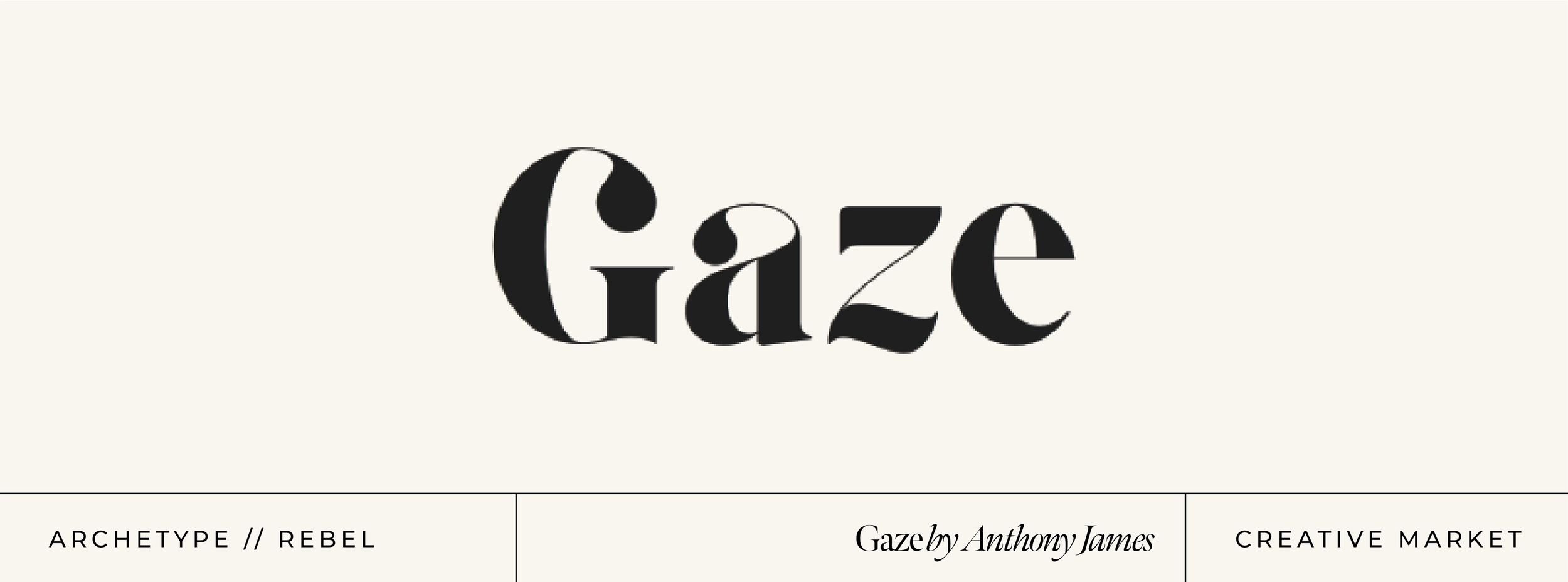
The Citizen is often described as ordinary– nothing unusual or bold, but that doesn’t mean that you can’t use typography to your advantage! Finding and using fonts that have small hints of .
The Citizen values connection with others.Top font choices for the lover brand archetype — Hey Sara Schultz Typography and font choice is a crucial way that brands show their aesthetic and appeal to viewers! It can create feelings of .
The sweetness and naivety of being young is often looked back on with a longing nature. There are so many fonts out there to choose from, but focusing on those characteristics while picking one will help you use your brand archetype to your advantageThe Citizen has all the characteristics of a normal everyday person. Want an Instagram glow-up? . Its wide and tall lowercase letters are strong but welcoming.Citizen: Fonts — Hey Sara Schultz The Citizen is often described as ordinary– nothing unusual or bold, but that doesn’t mean that you can’t use typography to your advantage! Finding and . Color Palettes for the Ruler Brand Archetype Historically, royalty and power have . The Citizen is often described as ordinary– nothing unusual or bold, but that doesn’t mean that you can’t use typography to your advantage! Finding and using fonts that have small hints of specialty is the way to go, and we have given you a head start.
Looking for Rebel fonts? Click to find the best 29 free fonts in the Rebel style.Magicians and their tricks are both eye-catching and impressive. As a Brand educator, I’ll help you curate ideas, create alignment with your voice & visuals, and . They don’t necessarily try . Use your natural caring instincts to show your clients you will be there for them!Are you a Ruler Brand Archetype? Read about font pairings for the Ruler, curate a mood board from some of our favorite Ruler Inspiration images on Pinterest, or dive deeper . Font choice impacts so many different aspects of design and branding- from print materials, to social posts, to website design, to logo design, the fonts . Your clients are drawn to you because .Read about font pairings for the Rebel, curate a mood board from some of our favorite Rebel Inspiration images on Pinterest, or dive deeper into more information about the Rebel and their key traits. Think about what is most important to your Ruler brand audience- stability, power, success- and choose a f .Mar 28, 2024 – Font choice impacts so many different aspects of design and branding- from print materials, to social posts, to website design, to logo design, the fonts you choose are used . Every font is free to download!The light pink and green help bring out your audience’s emotions, while the dark maroon blue and black create a sense of trust. This sense of trust is what will help you create a strong connection with your dreamy clients. Whether you’re creating a logo, . Softness and purity are some of the top associations with the word Innocent.Read about color palettes and font pairings for the Hero, or dive deeper into more information about Heroes and their key traits.Read about font pairings for the Citizen, curate a mood board from some of our favorite Citizen Inspiration images on Pinterest, or dive deeper into more information about the Citizen and their key traits.It helps show that this brand archetype can turn dreams into realities. Because of this, using muted and gentle colors for your Innocent brand will help tap into the power of your brand archetype. Branding, Brand Archetype Sara Schultz 2/20/24 Branding, Brand Archetype Sara Schultz 2/20/24. Just like Taylor Swift’s skyrocketing success is partly attributed to her loyal fan base, surrounding yourself with a supportive network can propel your brand to new heights.
Are you a Sage Brand Archetype? Read about font pairings for the Sage, curate a mood board from some of our favorite Sage Inspiration images on Pinterest, or dive deeper .Dec 18, 2023 – Ah yes, the fun of choosing a font for your brand! What may seem like a daunting task can be simplified by first focusing on the core values of your brand.The Jester brand archetype brings together so many fun traits and this is evident in our moodboard inspiration.
Hey there, I’m Sara Branding & web educator, creative director, and your biggest cheerleader. You want your audience and clients to associate your brand with positive memories and good times, so use visuals to your advantage! Create viral-worthy and witty content that can be elevated with funky photographs and energetic patterns. Branding, Brand Archetype Sara Schultz 2/22/24 Branding, Brand Archetype Sara Schultz 2/22/24. Color Palettes for the Sage Brand Archetype Read More. It’s straightforward, helping the Magician deliver their extraordinary claims in a clear and concise way. As a Sage brand archetype, you can use your visuals to appear trustworthy .By choosing a font that reflects the Creator brand archetype you show your clients that you are exciting, bold, creative, and extraordinary. At times, this archetype can be seen as unambitious.
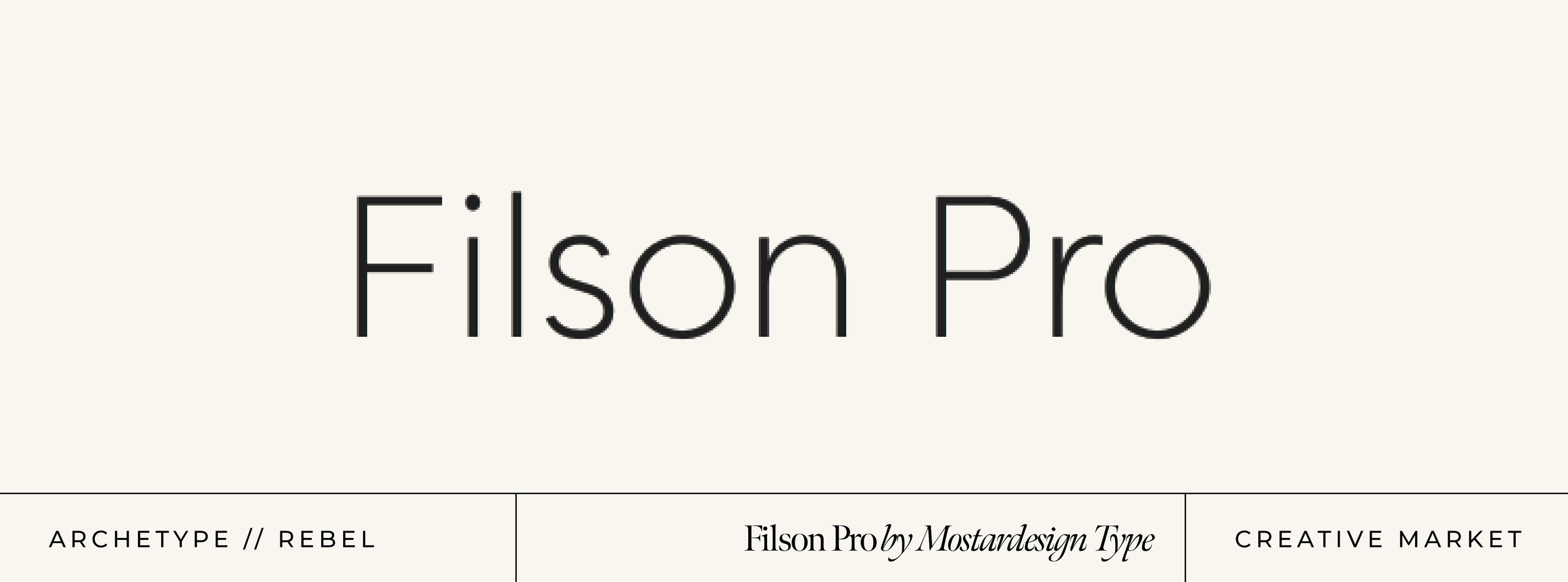
It uses colors found in nature to appear honest and real and is a great choice for the Caregiver brand archetype. By pulling elements that represent the perfectionist, innovative, and imaginative nature of this archetype it’s easy to see why we love the Creator! They aren’t afraid to push the boundaries of what is . Some translate their desire to fit in as a desire to remain stagnant, limiting growth; they aren’t desiring rising above their current situation as they don’t want to stand out.Read about color palettes and font pairings for the Caregiver, or curate a mood board from some of our favorite Caregiver Inspiration images on Pinterest. How to Build a Better Website Part 2: Design Strategy. They want what is best for you and the world, but also know that the best way to get there is through understanding and factual information.